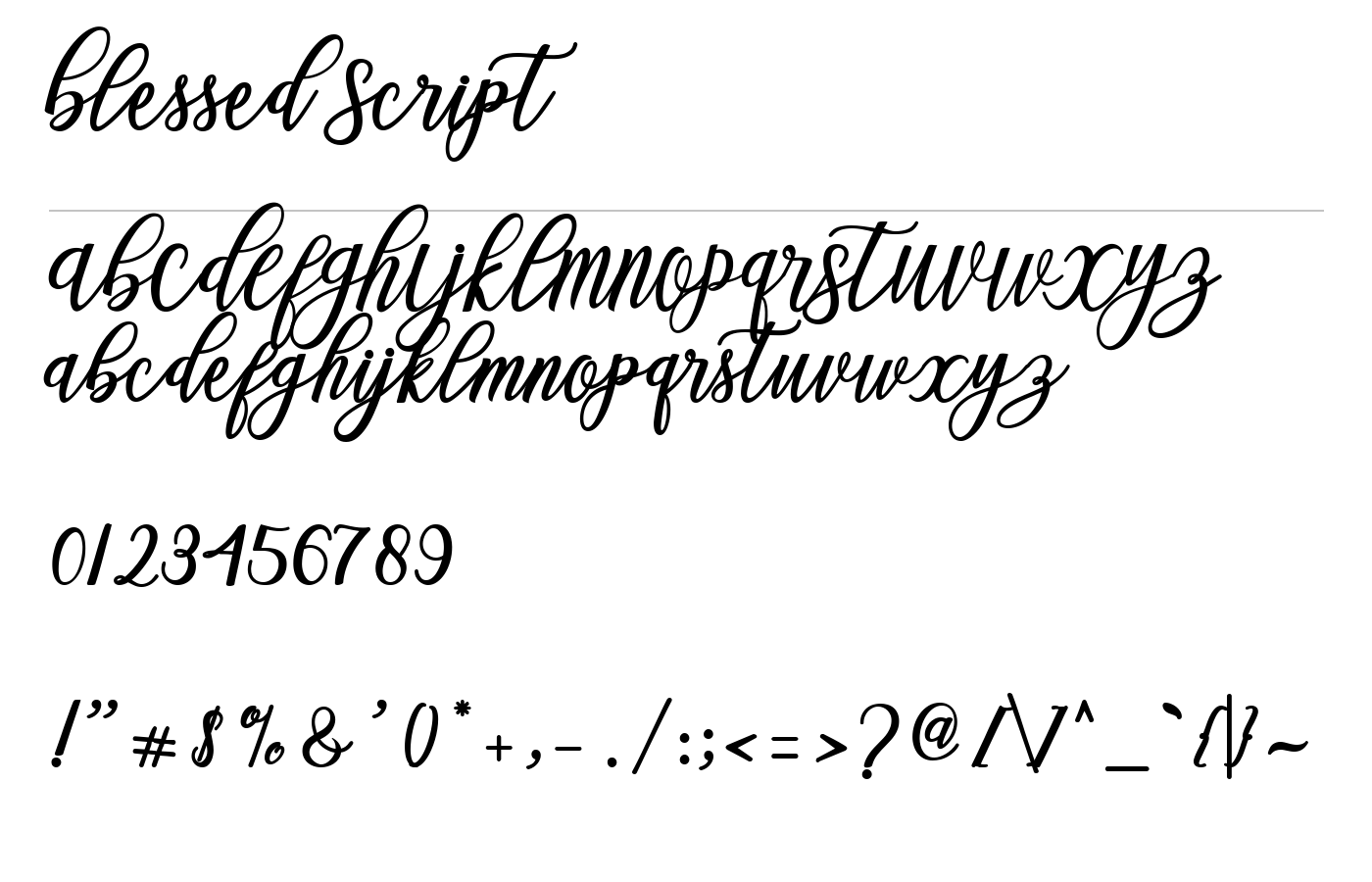
Blessed Script is a graceful, elegant script font featuring smooth, flowing strokes and moderate contrast that gives a handwritten, calligraphic feel. Its tall, slender letterforms with delicate curves and well-balanced spacing make it perfect for stylish invitations, branding, and any design needing a feminine, sophisticated touch. This font works beautifully in logos, packaging, and headlines where a refined yet approachable look is desired.
Blessed Script Font
About Blessed Script Font
| Font family | Blessed Script Font |